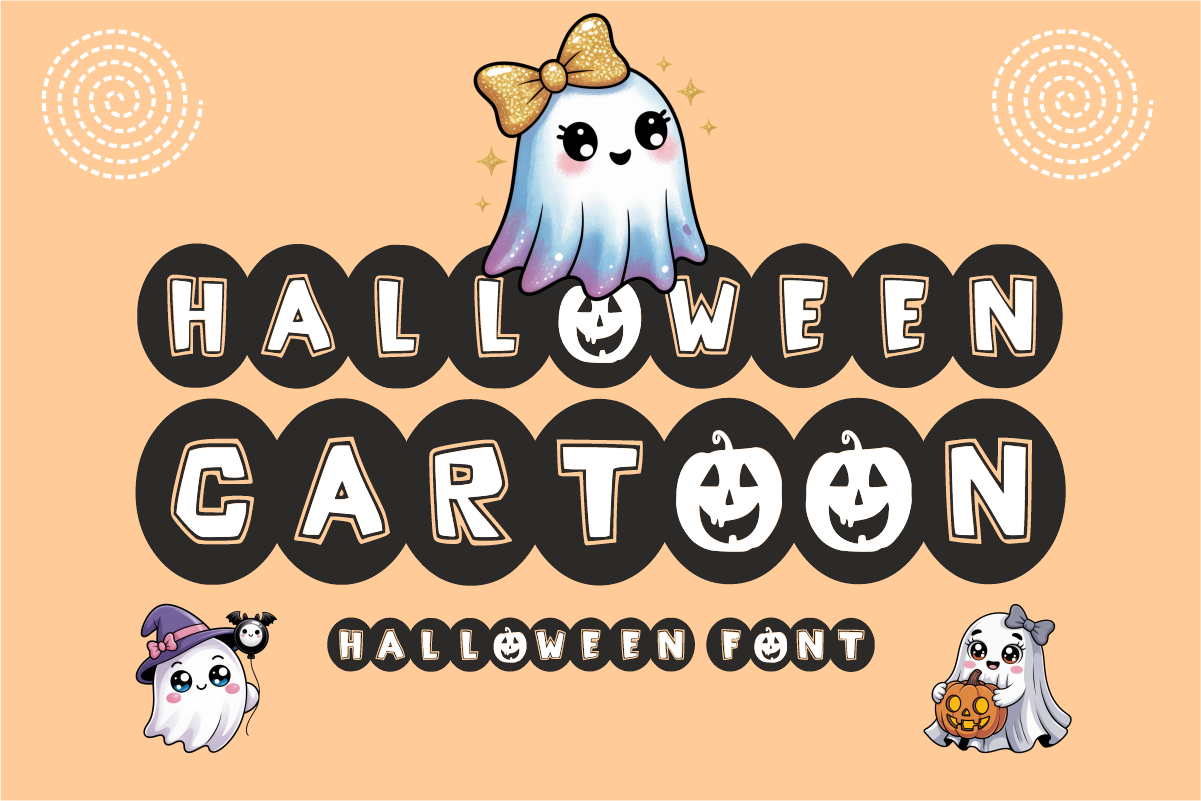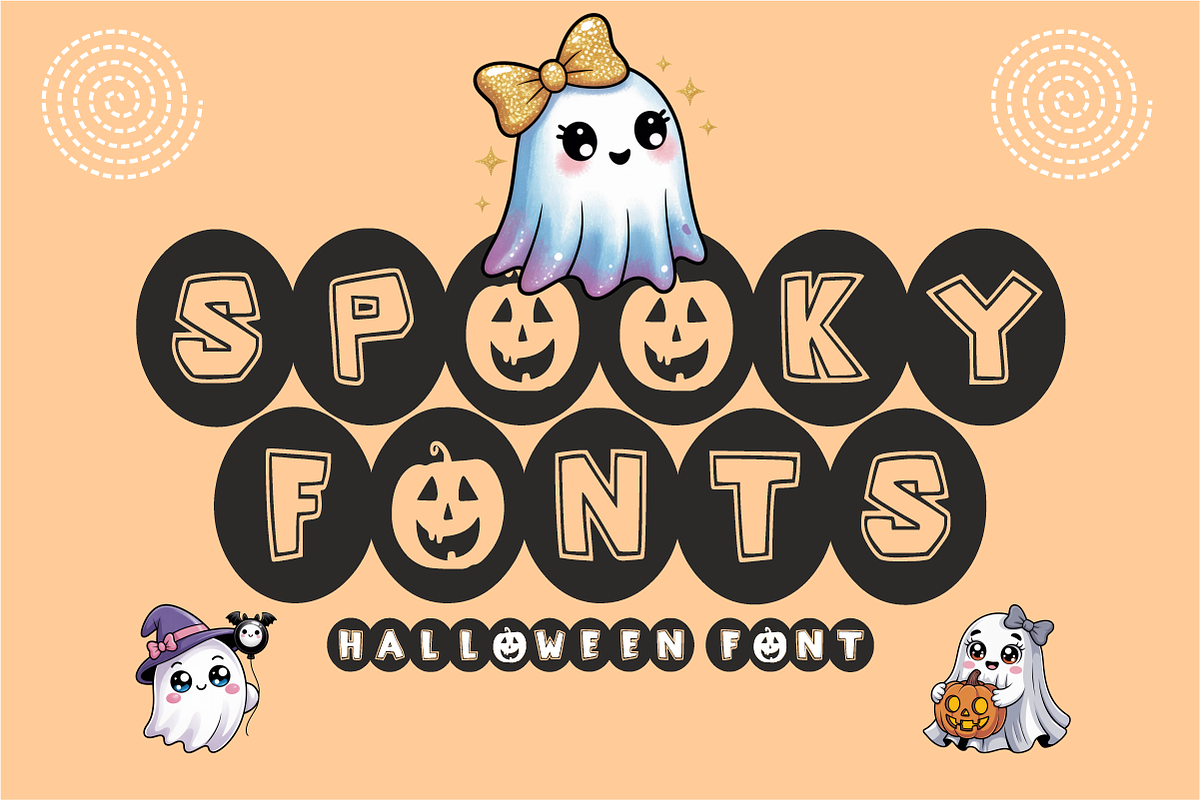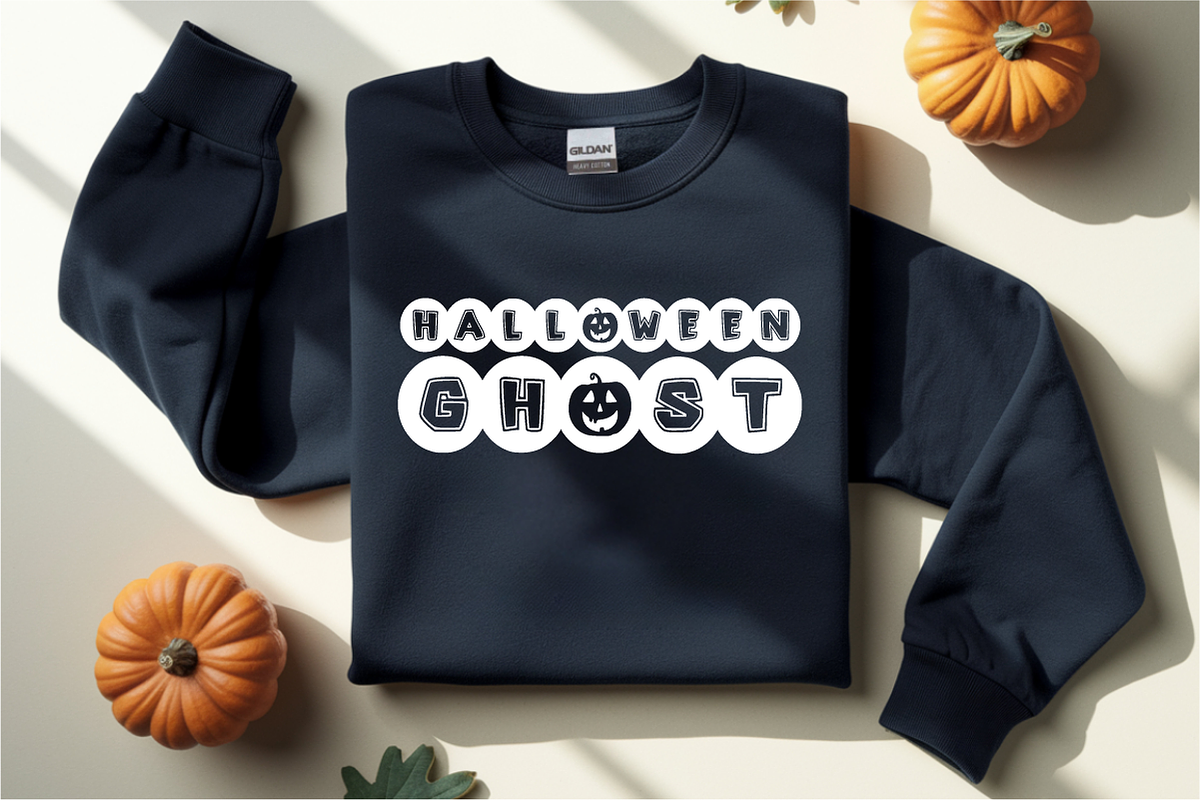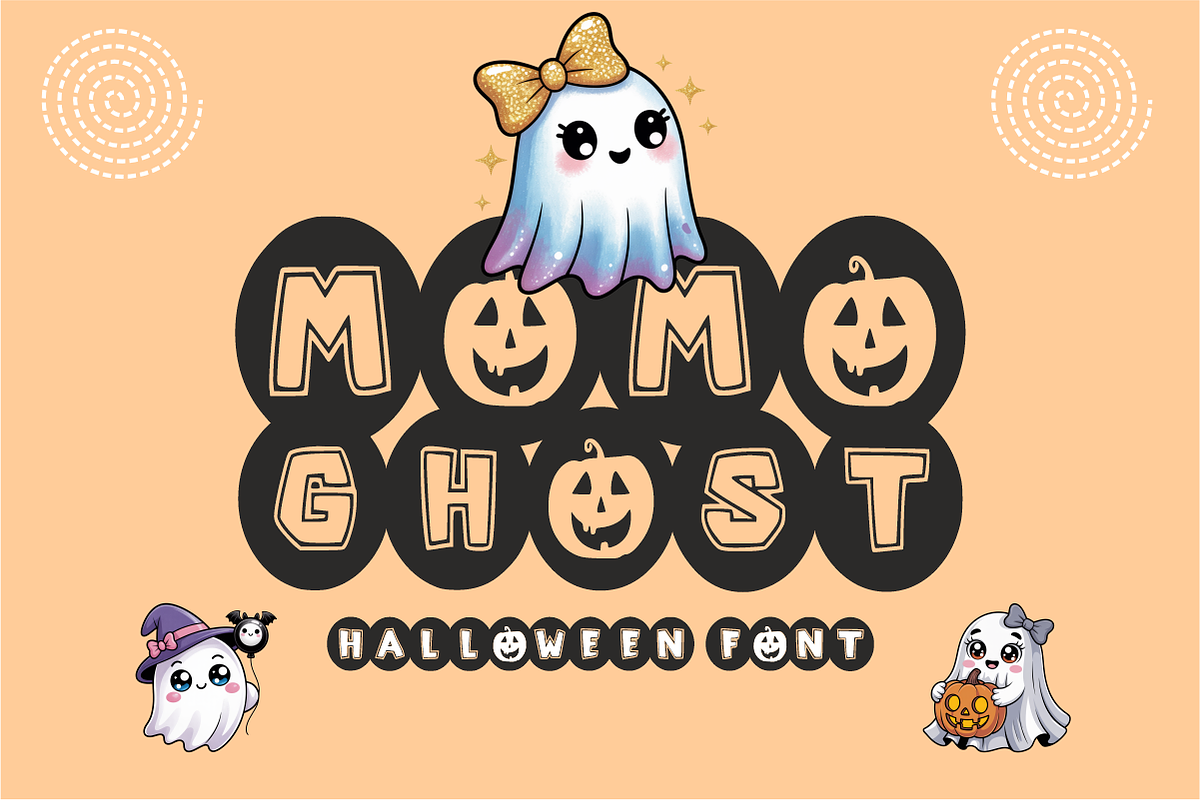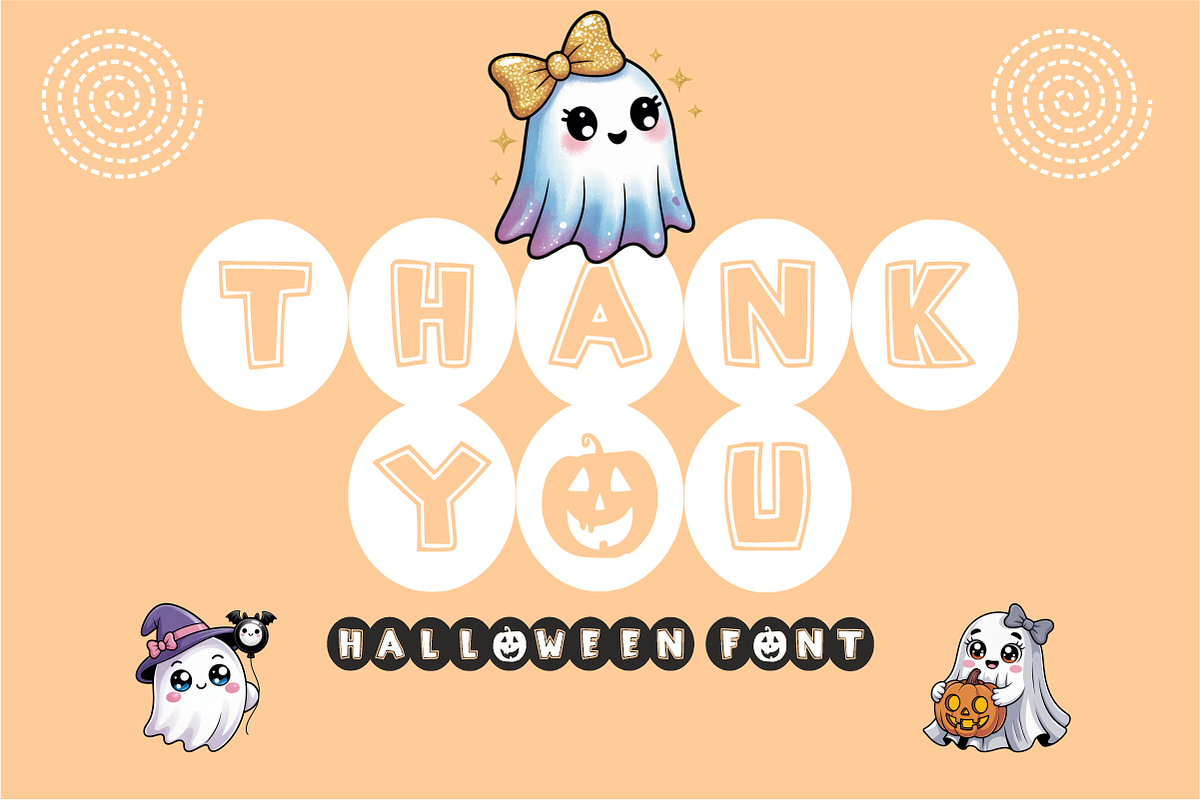
Halloween Cartoon - Spooky Font
Spooky season just got a whole lot cuter with Halloween Cartoon! This ultra-playful display font features bold cutout letters nestled inside chunky black sticker bubbles, complete with whimsical jack-o'-lantern surprise details hidden right inside the letters. It’s the ultimate choice for adding a fun, festive, and creepy-cute touch to all your autumn projects.
Perfect for trick-or-treat branding, festive party decor, and trend-focused holiday crafting, Halloween Cartoon beautifully pairs a whimsical cartoon aesthetic with clean, high-impact legibility. It is highly versatile, exceptionally smooth for cutting machines like Cricut, and fully optimized for seamless performance across premium digital software and print setups.
All-Caps Character Set (Chunky cutout letters inside bold black bubble frames)
Numbers & Simple Punctuation (Essential, clean symbols included)
Halloween Party Invitations, Spooky Banners, & Greeting Cards 🎃
Cricut, Silhouette, & DIY Autumn Craft Sublimation Projects ✂️
Custom Die-Cut Stickers, Cute Planner Decals, & Festive Merch 👻
Kids Spooky Goodie Bags, Gift Tags, & Holiday Treat Packaging 🍬
Children's Halloween Book Covers, School Activities, & Classroom Decor 📚
High-Impact YouTube Thumbnails, Cozy Fall Reels, & Social Media Layouts ✨